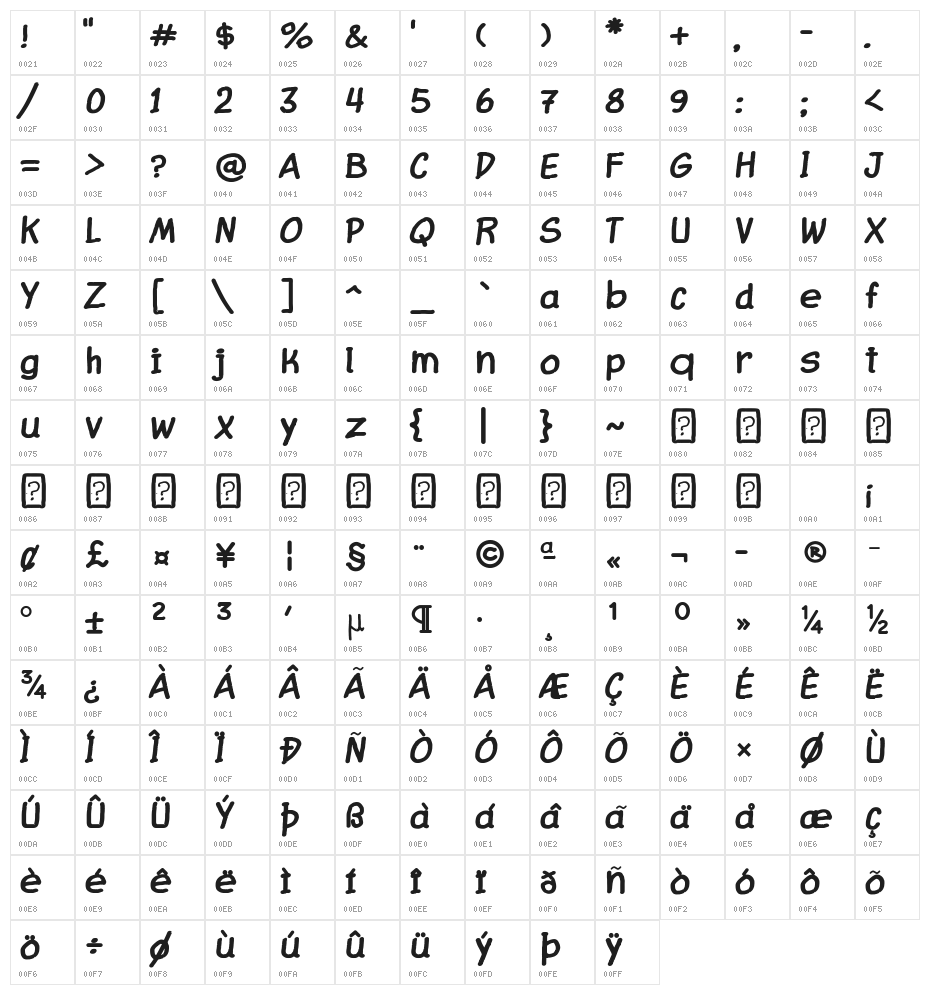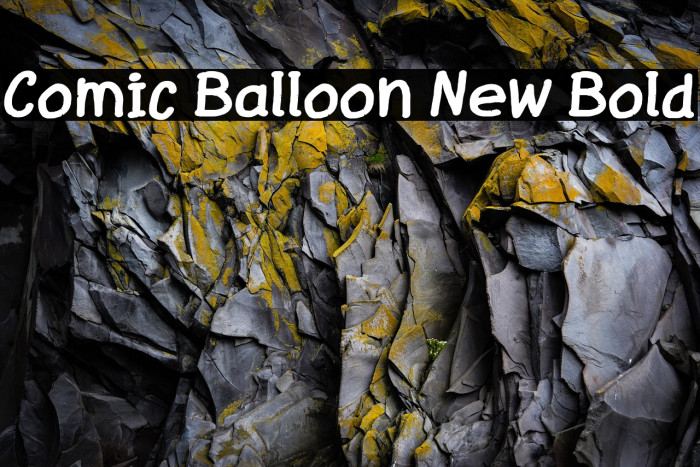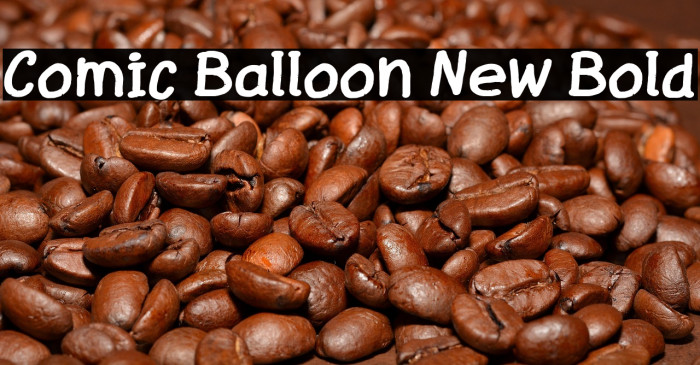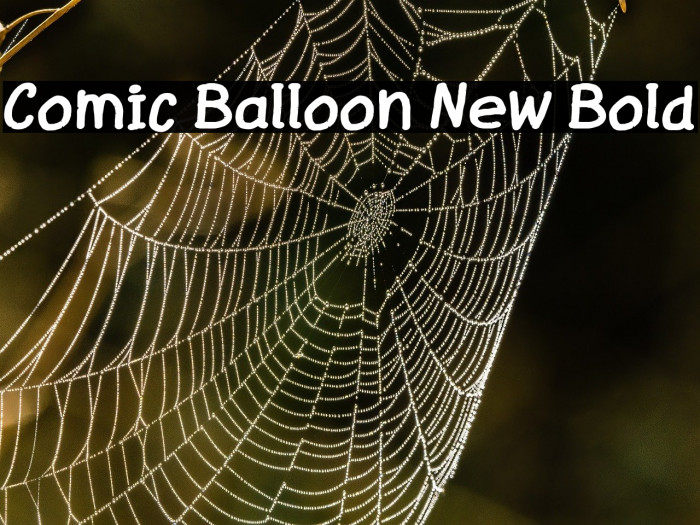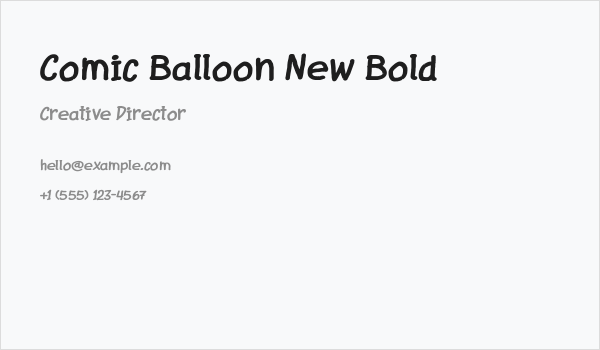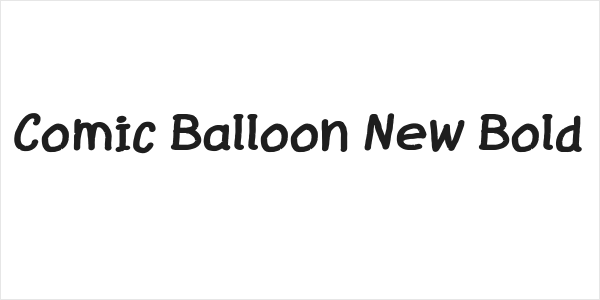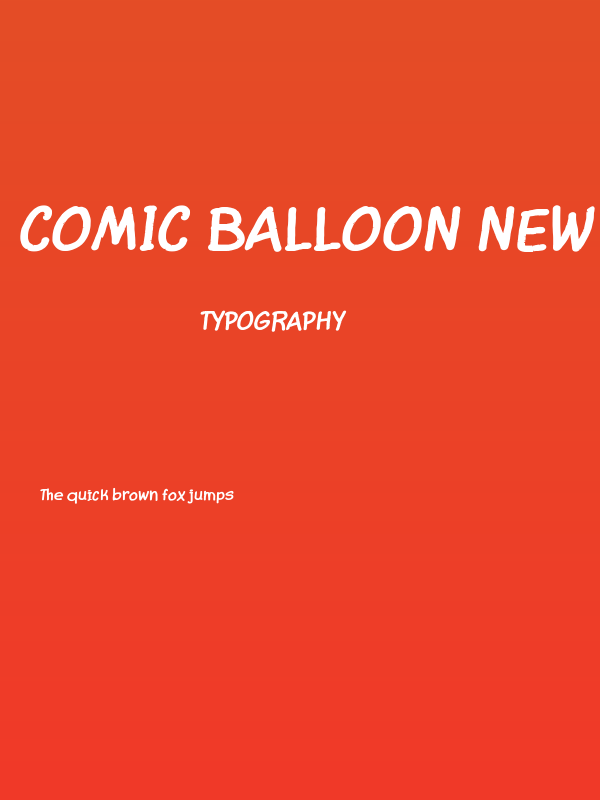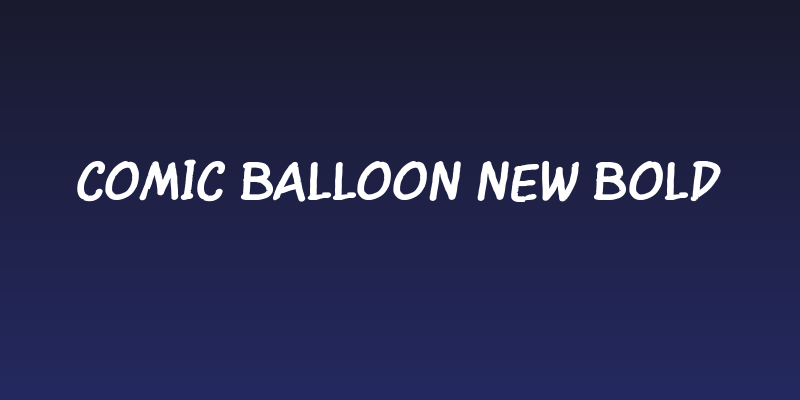
Comic Balloon New Bold Font
Comic Balloon New Bold Description
This playful and bold font exudes a comic-like charm with its rounded, balloon-style characters. The letters are slightly irregular, giving them a hand-drawn appearance that adds a whimsical touch. The uppercase and lowercase letters maintain a consistent style, with smooth curves and a friendly demeanor. The numbers and special characters follow the same playful aesthetic, making this font ideal for projects that require a lighthearted and approachable feel. Its bold weight ensures visibility and impact, making it suitable for headlines and attention-grabbing text.
| Overall Style | Playful, Comic |
| Proposed Projects | Ideal for comic books, children's books, playful branding, and posters. |